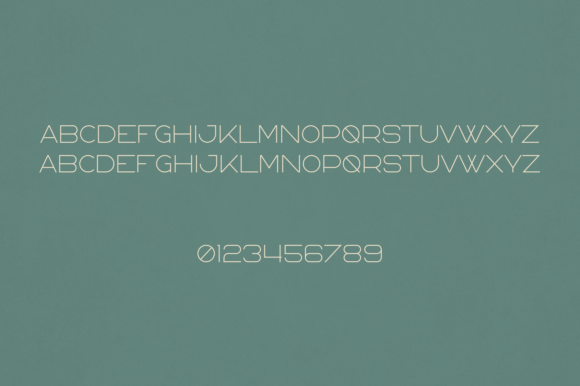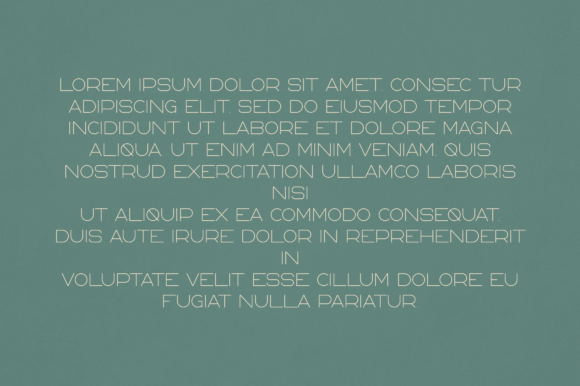
Introduction to Freida Font
Have you ever been working on a creative project, pouring your heart and soul into every detail, and then suddenly, you stumble upon the perfect font to bring it all together? For designers, that moment is pure magic, and it’s exactly what Freida Font is designed to deliver. With its elegant and versatile sans serif style, Freida Font is the ultimate design resource to elevate your typography game and make your project truly shine.
Whether you’re working on branding projects, home-ware designs, product packaging, or magazine headers, Freida Font is the perfect addition to your design arsenal. Its high-quality design and transparent background make it a versatile tool for any creative endeavor. And the best part? You can download Freida Font for free, making it an invaluable resource for designers of all levels.
Key Features of Freida Font
- Unique, handcrafted design with a distinctive touch, making it stand out in creative projects.
- Comes in a single weight, perfect for those seeking a simple yet elegant design element.
Honest Review: Freida Font
As a designer, I’m always on the lookout for high-quality fonts that can elevate my creative projects. The Freida Font is a great addition to my design resource library, and I’m excited to share my thoughts on this free download.
Here are some things that work well with the Freida Font: ✨
- Unique and elegant design style
- Wide range of weights and styles available
- Perfect for use in creative projects where a touch of sophistication is needed
- Lack of support for transparent backgrounds, which can limit its use in certain design scenarios
- Not suitable for use in complex or high-contrast designs, as the font may become difficult to read
Overall, I’m impressed with the Freida Font. Its high quality and elegant design make it a great addition to any designer’s library. While it may have some limitations, I believe it’s a valuable resource for any creative project that requires a touch of sophistication.
Freida Font is ideal for use in creative projects, such as graphic design, digital art, and typography. You can also use the font to create a free download template or a design resource for your personal or professional use.
To get the most out of Freida Font, use it in combination with other design resources, such as images and graphics. Experiment with different font sizes and styles to create a unique visual effect. Also, be sure to adjust the font settings to achieve a high-quality result.